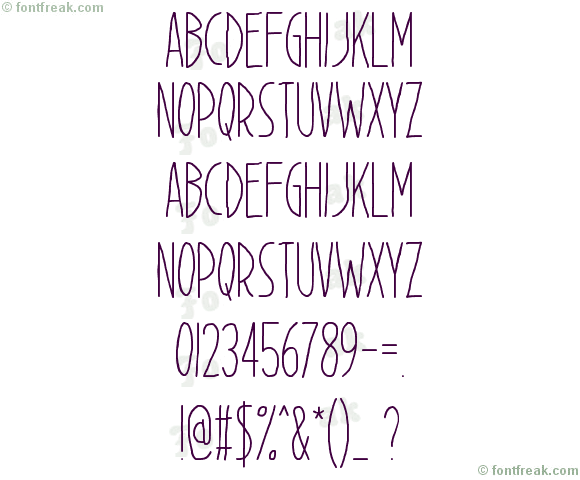
Cisgender
About Cisgender
The Cisgender font by Andrew McCluskey is a unique display typeface that captures attention with its playful yet sophisticated design. As a sans-serif font, it features clean lines and a modern aesthetic, making it versatile for various applications. The stroke weight is consistent, providing a balanced appearance, while the overall spacing allows for excellent legibility in both large and small sizes. The font's simplicity is complemented by subtle decorative elements, giving it a distinctive character that stands out without overwhelming the viewer.
Cisgender is an excellent choice for a variety of creative projects. It works beautifully for wedding invitations, where its elegant yet approachable style can set the tone for a memorable event. Additionally, this typeface is ideal for movie posters, providing a contemporary flair that attracts attention and piques interest. Restaurant menus can also benefit from the Cisgender font, as it conveys a modern vibe that is perfect for trendy dining establishments. Content creators will find this font suitable for social media graphics, making posts visually appealing and engaging for their audience.
What sets the Cisgender font apart is its ability to blend contemporary aesthetics with functionality. Its clean and modern lines create a sense of openness, making it perfect for conveying messages that resonate with today's audience. Whether you're designing a unique branding project or an eye-catching promotional piece, the Cisgender font is a versatile tool that can enhance your creative vision. Don't miss the opportunity to explore the Cisgender font free download and elevate your designs today.